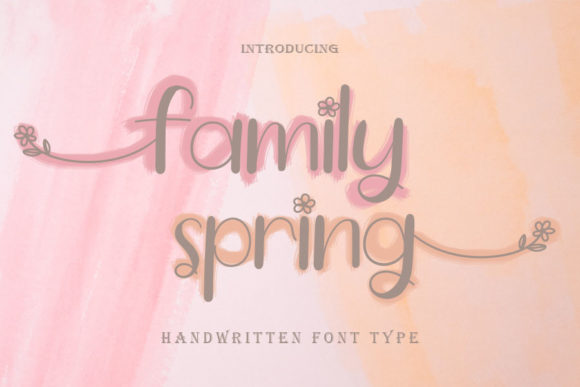
About Family Spring Font
Family Spring is a beautiful handwritten font, masterfully designed to become a true favorite. It maintains its classy calligraphic influences while feeling contemporary and fresh. Fall in love with it and bring your projects to the highest levels!